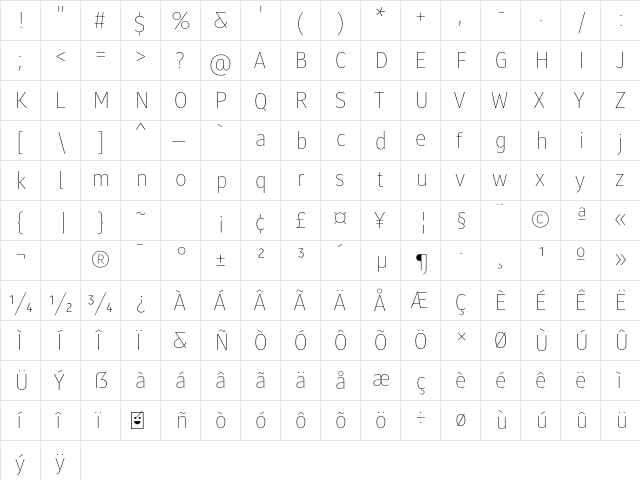
Molecula - Demo Thin
| Foundry | Northeast Type Foundry |
| Designer | Erick Dahl |
Design Context for Molecula - Demo Typeface
Molecula - Demo offers clean, dependable letterforms without strong stylistic allegiance, making it a practical choice for designers who need flexibility. Its slender proportions lend an understated elegance to any composition.